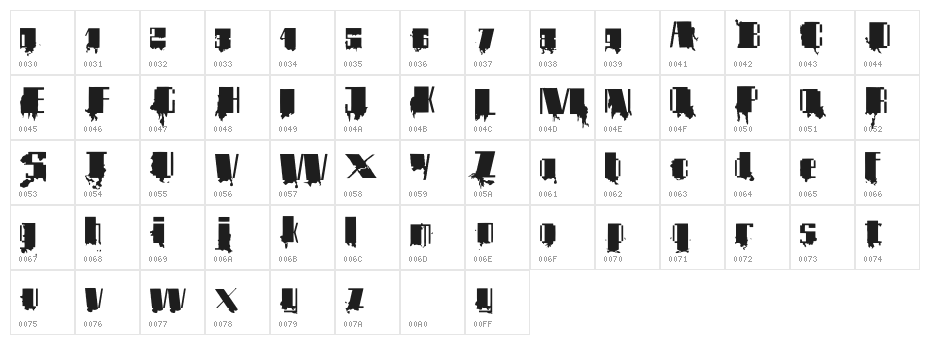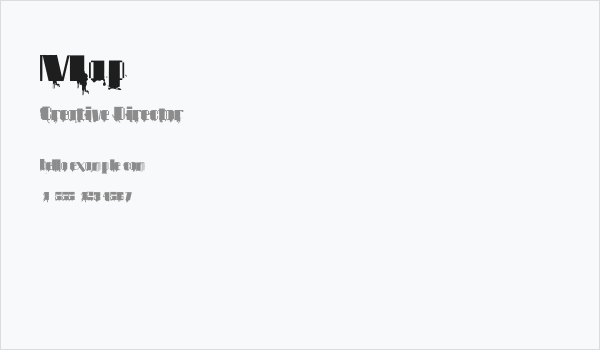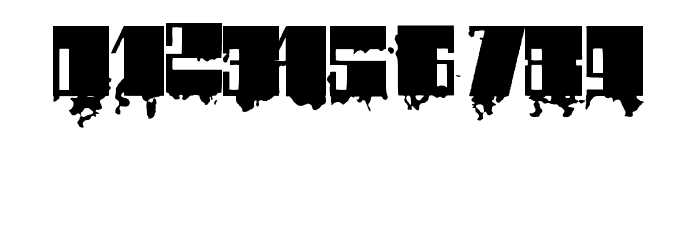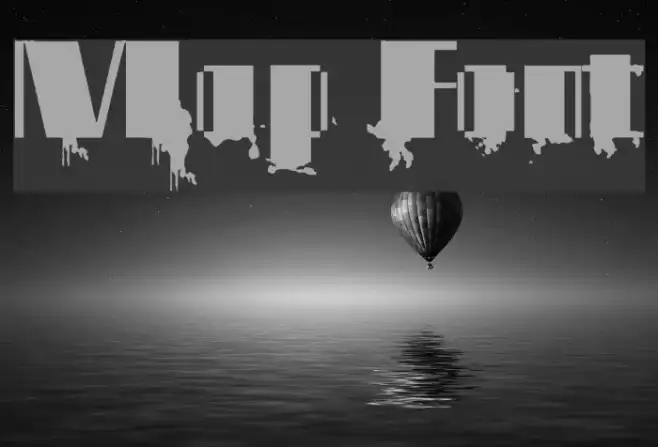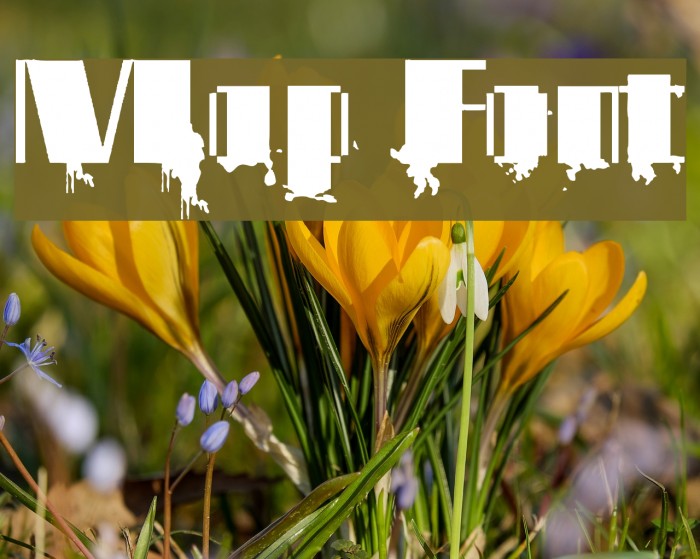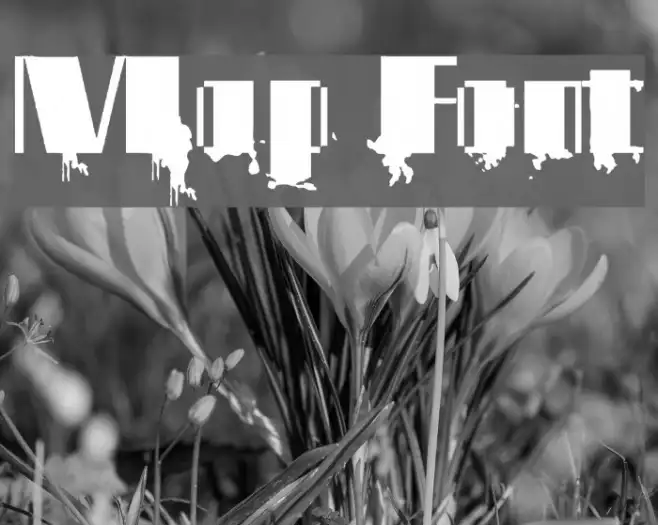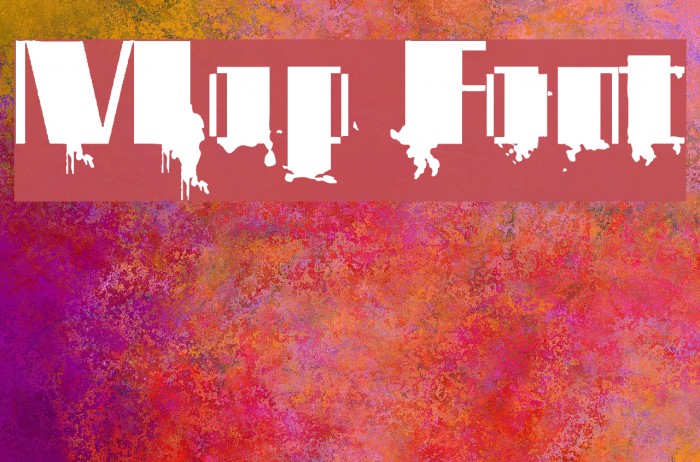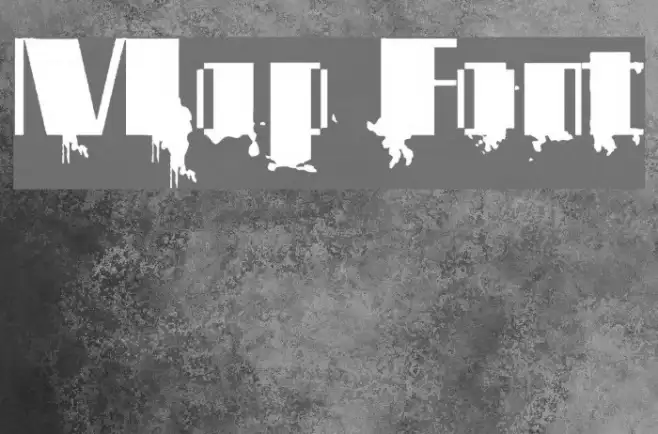
Map Font
Map Description
This font features a bold, distressed style with a grunge aesthetic, characterized by irregular edges and a dripping effect that gives it a raw, edgy appearance. The uppercase and lowercase letters maintain a consistent height, creating a uniform look despite the chaotic design. The numerals and special characters follow the same theme, ensuring a cohesive visual impact across all elements. This font is ideal for projects that require a strong, rebellious statement, such as music album covers, posters, or urban-themed designs.
| Overall Style | Grunge, Edgy |
| Proposed Projects | Ideal for music album covers, edgy posters, urban-themed designs, and rebellious branding. |